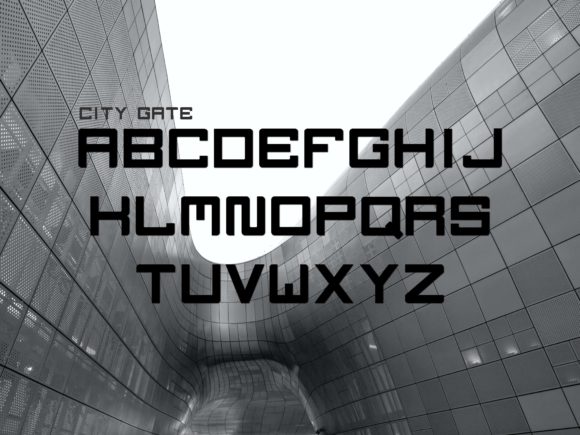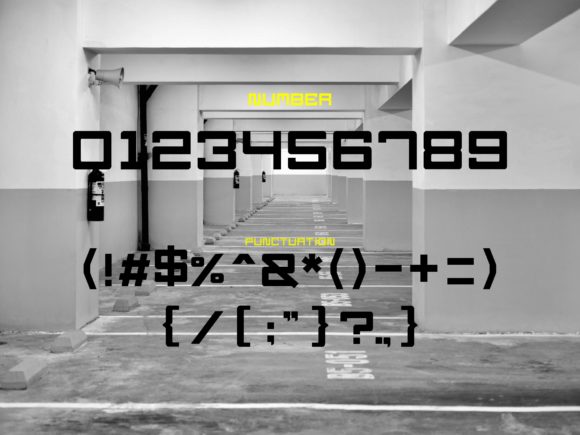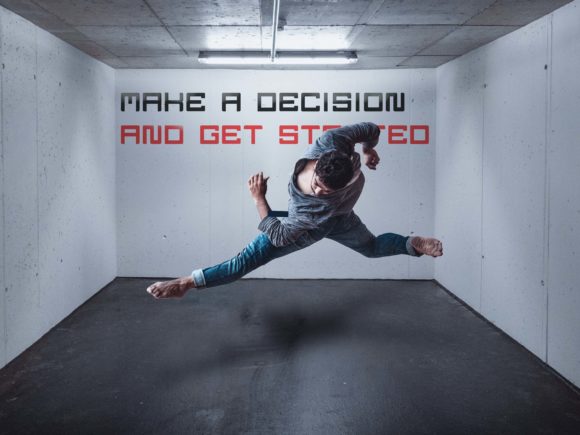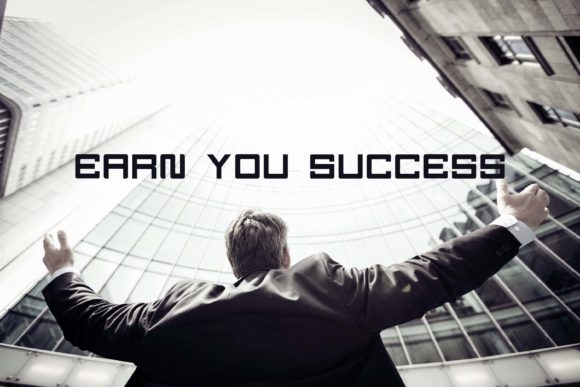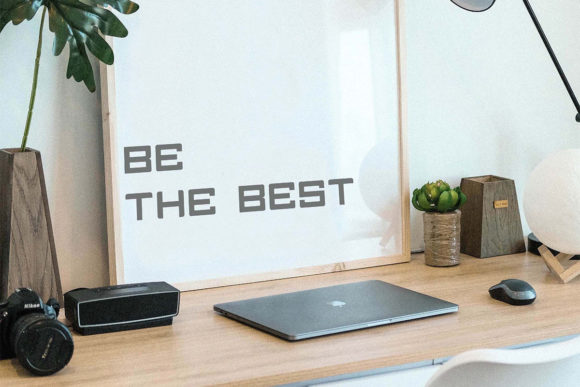
Introducing City Gate Font: The Modern Display Font for Urban Designs
In the world of typography, fonts play a crucial role in conveying the message and aesthetic of a design. For designers and crafters looking for a modern and dynamic display font, City Gate Font is an excellent choice. Inspired by the urban landscape, City Gate Font is a sleek and robust typeface that can elevate your designs to the next level.
What is City Gate Font?
City Gate Font is a modern display font designed to capture the essence of urban style. Its clean and neat layout reflects a sense of robustness, making it perfect for designs that require a bold and contemporary look. The font’s unique characteristics are inspired by the dynamic angles and shapes found in cityscapes, giving it a fresh and edgy feel.
Key Features of City Gate Font
• Modern and sleek design: City Gate Font boasts a modern and sleek design that is perfect for designs that require a contemporary look.
• Dynamic and cool urban angle: The font’s unique angle and shape are inspired by the urban landscape, giving it a fresh and edgy feel.
• Neat and robust layout: The font’s clean and neat layout reflects a sense of robustness, making it perfect for designs that require a bold look.
• Endless possibilities: With City Gate Font, the possibilities are endless. Use it for a variety of designs, from posters and flyers to logos and branding materials.
Why Choose City Gate Font?
There are many reasons why designers and crafters should choose City Gate Font for their designs. Here are a few:
• Unique and distinctive look: City Gate Font has a unique and distinctive look that sets it apart from other fonts.
• Versatile and flexible: The font is versatile and flexible, making it suitable for a wide range of designs and applications.
• Easy to read and understand: Despite its bold and modern design, City Gate Font is easy to read and understand, making it perfect for designs that require clear communication.
How to Use City Gate Font
• Use it for headlines and titles: City Gate Font is perfect for headlines and titles, where its bold and modern design can make a big impact.
In conclusion, City Gate Font is a modern display font that is perfect for designers and crafters looking for a sleek and robust typeface. Its unique characteristics, versatility, and ease of use make it an excellent choice for a wide range of designs and applications. Whether you’re looking to create a bold and eye-catching poster or a professional logo, City Gate Font is sure to deliver.